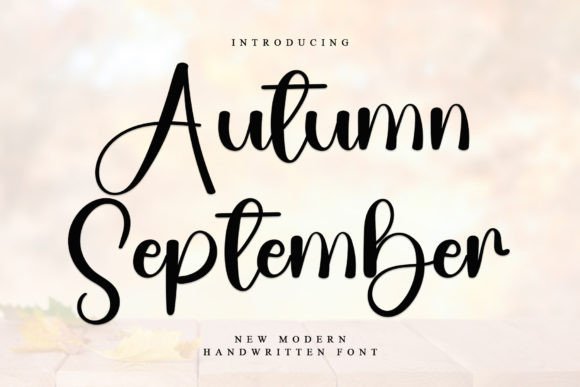
The Perfect Autumnal Touch: Discovering the Autumn September Font
As a designer, I’ve had my fair share of late nights scrolling through font libraries, searching for that one perfect typeface to bring a project to life. I recall working on a cozy autumn-themed branding project for a client, and feeling stuck on finding a font that captured the warmth and friendliness of the season. That’s when I stumbled upon the Autumn September font, and it instantly became the perfect fit. In this article, I’ll share my experience with this beautiful modern handwritten font, and explore its features, usage, and alternatives.
- ✅ Smooth, flowing letters that give text a personal and inviting feel
- ✅ Perfect for adding a warm, creative touch to any project, from branding to invitations
- ✅ Easy to read, even in smaller sizes, making it versatile for various applications
- ✅ Highly legible, with a friendly and approachable tone
- ⚠️ Limited availability of stylistic alternates, which might be a drawback for some users
- ⚠️ May not be the best fit for very formal or corporate projects, due to its casual and friendly nature
- Experiment with OpenType features, such as ligatures and stylistic alternates, to add personality to your text
- Explore the font’s glyphs and OpenType features to add creative touches to your design
The Story Behind Autumn September: Designer Inspiration
While the true story behind Autumn September remains a mystery, it’s easy to imagine that the designer was inspired by the warmth and coziness of the autumn season. Perhaps they wanted to create a font that captured the feeling of crisp leaves, warm coffee, and friendly conversations. Whatever the inspiration, Autumn September is a beautiful and versatile font that’s sure to bring a touch of autumnal magic to any project.
Q: What type of projects is Autumn September best suited for?
A: Autumn September is perfect for creative projects, such as branding, invitations, and social media graphics, where a warm and friendly tone is desired.
Q: Does Autumn September support OpenType features?
A: Yes, Autumn September supports OpenType features, including ligatures and stylistic alternates, which can be accessed in compatible design software.